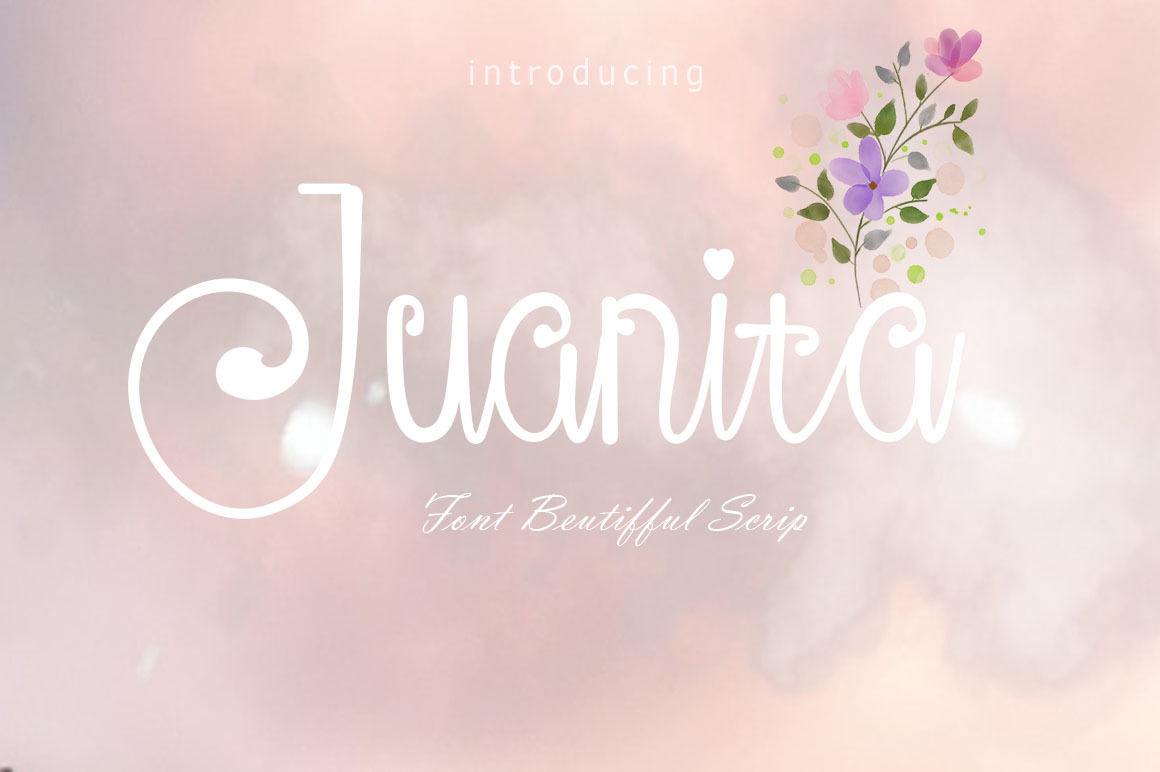
Juanita | Script Typeface
Juanita is a lovely and delicate script font that exudes elegance and class. This font was particularly crafted for those who need a beautiful and refreshing look to their designs. To access dingbats and additional characters please visit the glyphs panel in the design program you’re using.